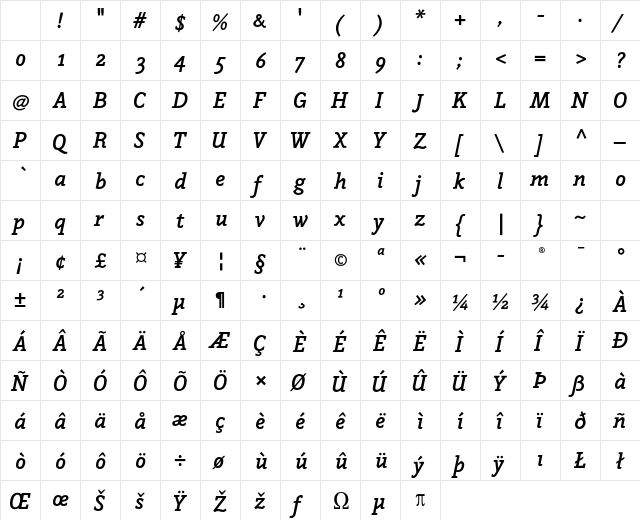
Complete Napoleone Slab ITC Std BoldIta glyph index. Displaying only characters natively supported by Napoleone Slab ITC Std BoldIta font.
Napoleone Slab ITC Std features prominent, blocky serifs that give it a confident, grounded presence - equally at home in editorial settings and bold branding work. Its bold stroke weight gives it real presence on the page.
Pro Tip: Use Napoleone Slab ITC Std for headlines and subheadings where its slab serifs can make an impression. It also holds up well in mid-size body copy thanks to its sturdy construction.